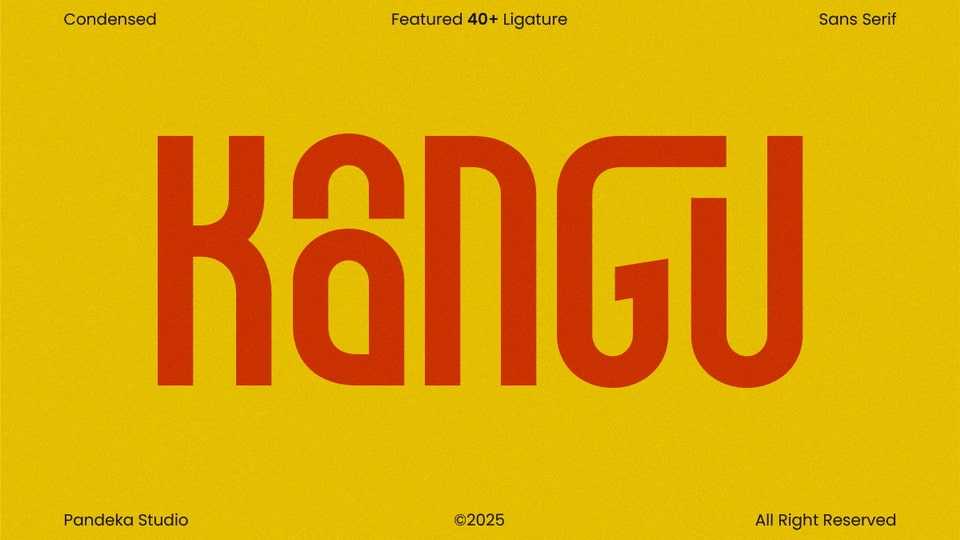
Download Kangu font, a bold, futuristic sans-serif typeface crafted for innovation-driven designs. With its sharp angles and dynamic style, Kangu perfectly fits tech branding, esports, automotive, and modern advertising.